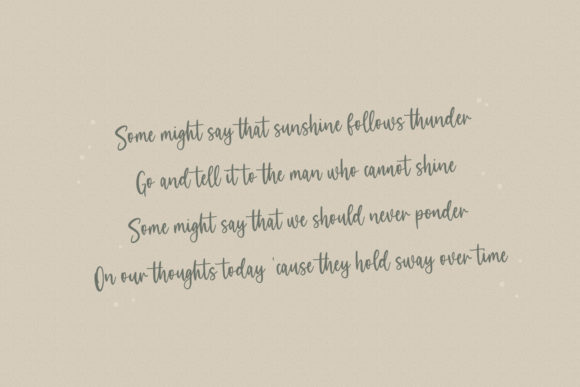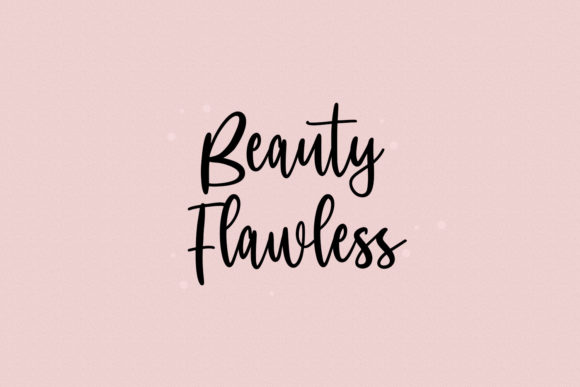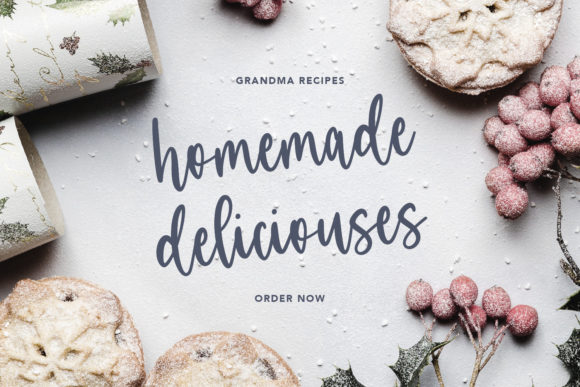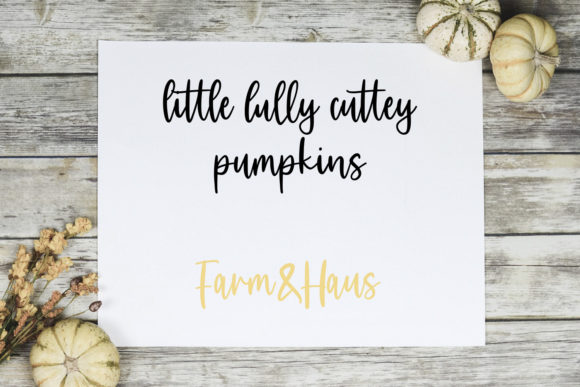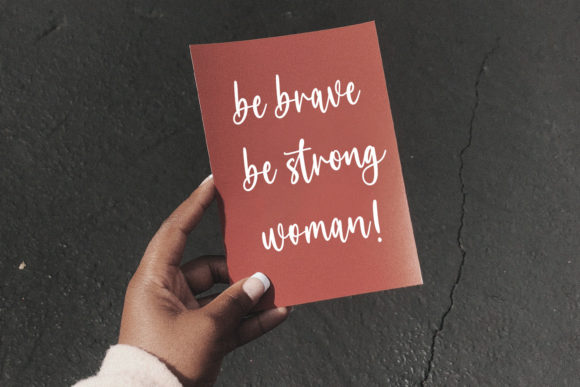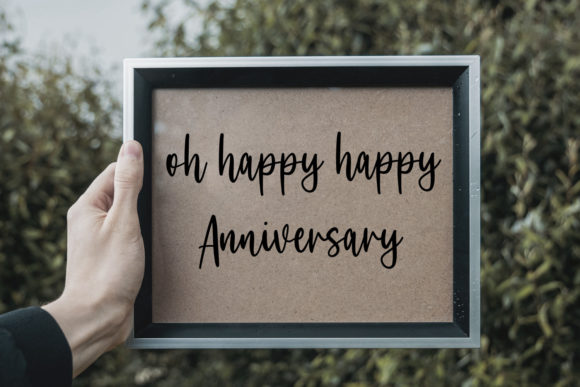
Introduction to Skyeeloft Font
Have you ever found yourself in the midst of a creative project, surrounded by scraps of paper and half-finished ideas, only to stumble upon the perfect font to bring it all together? For designers, this moment is pure magic – and we’re about to share it with you.
Meet the Skyeeloft Font, an elegant and dainty handwritten font that’s as versatile as it is beautiful. With its sweet and delicate swashes, this original look is sure to elevate any design project, from letterheads and titles to stationery and more. Whether you’re working on a high-quality design resource or just want to add a touch of whimsy to your next creative project, the Skyeeloft Font is a valuable addition to your toolkit.
Key Features of Skyeeloft Font
- Transparent background, allowing for seamless integration with other design elements and minimizing visual clutter.
- Includes a range of characters and glyphs, including Latin, Cyrillic, and Greek alphabets, making it suitable for multilingual projects.
- Resolution-independent, ensuring crisp and clear display on high-resolution screens and prints.
- Designed with versatility in mind, suitable for use in a variety of contexts, from digital interfaces to print materials.
Honest Review: Skyeeloft Font
I recently stumbled upon the Skyeeloft Font and I must say it’s a great addition to any design resource. As a designer, I’m always on the lookout for high-quality fonts that can elevate my creative project.
The Skyeeloft Font has a clean and modern design, making it perfect for a variety of applications. I particularly love the transparent background, which allows for seamless integration with any design element.
Here are some of the things that work well with the Skyeeloft Font:
- ✨ Clean and modern aesthetic that’s easy to use
- ✨ Transparent background for seamless integration
However, I do have to mention a few limitations:
- ⚠️ Limited character set, which may not be suitable for extended text
- ⚠️ May not be as versatile as other fonts in certain design scenarios
Overall, I’m impressed with the Skyeeloft Font and would recommend it to designers looking for a high-quality, modern font. With a little creativity, this font can be a great addition to any design project.
Tips for Getting the Most Out of Skyeeloft Font
For optimal results, use Skyeeloft Font in conjunction with a high-contrast background to showcase its unique design. You can also experiment with different font sizes and styles to create visually appealing designs.
Skyeeloft Font is ideal for creating eye-catching titles, headings, and body text for various creative projects, including logos, brochures, and social media graphics. Its high-quality design and transparent background make it a versatile and effective design resource.